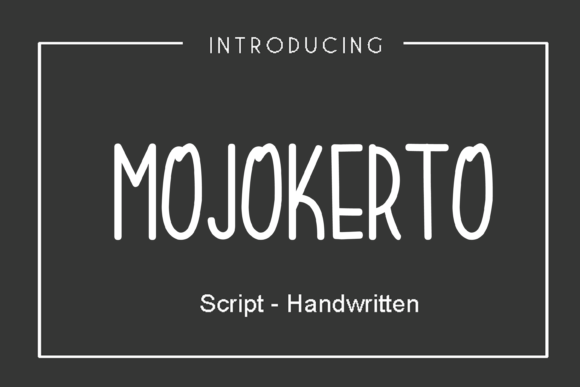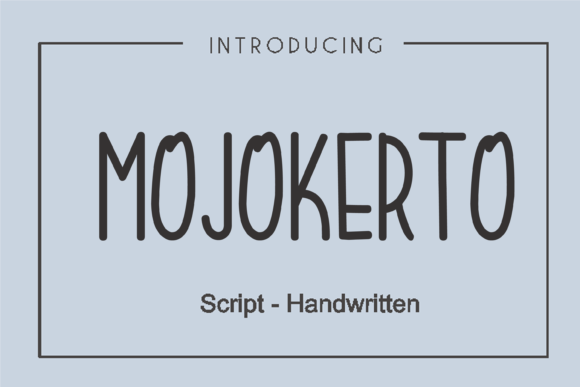
Mojokerto Font
About Mojokerto Font
Mojokerto simplifies elegance into one truly outstanding handwritten font. This fantastic font is best suited for headlines of all sizes, as well as for blocks of text that have both maximum and minimum variations. Whether it’s for web, print, moving images or anything else – Mojokerto will look spectacular.